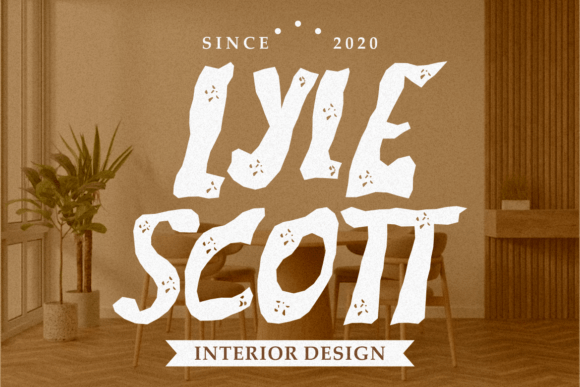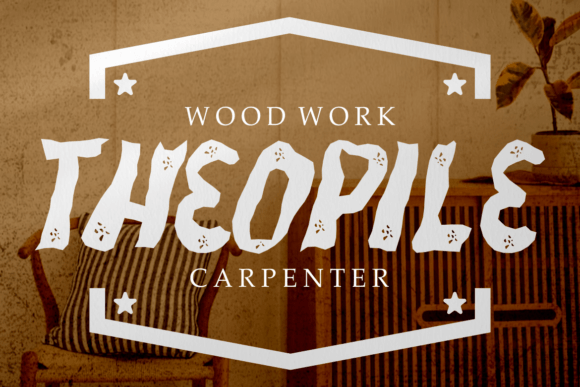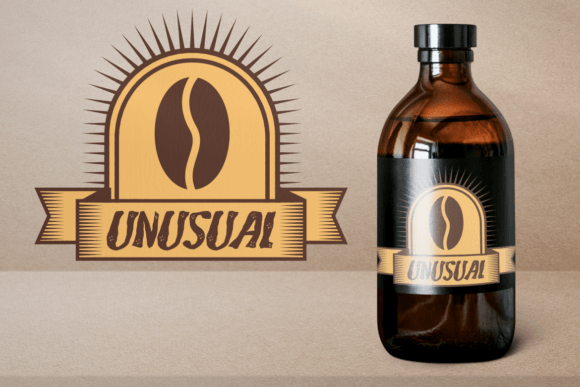
Introduction to Chumba Wamba Font
You’ve been staring at your blank design canvas for what feels like an eternity, searching for the perfect font to bring your creative project to life. You’ve scoured design blogs, browsed font libraries, and even experimented with free downloads, but nothing seems to capture the essence of your vision. That’s when you stumble upon the Chumba Wamba Font – a game-changing display typeface that’s about to revolutionize your design process.
This charming font is more than just a pretty face; it’s a design resource that offers a unique blend of classic elegance and playful roughness. With its textured details and intentionally messy outlines, Chumba Wamba Font is the perfect addition to any design project that needs a touch of personality.
Whether you’re a seasoned designer or a creative beginner, the Chumba Wamba Font is an invaluable asset that will take your designs to the next level. With its high-quality features and transparent background, you can easily integrate it into your printing designs, stickers, greeting cards, and business branding materials, making it an essential tool for any design project.
Key Features of Chumba Wamba Font
- High-quality, unique design ideal for creative projects and graphic design.
- Perfect for designers looking for a distinctive and eye-catching font to elevate their creative project.
Honest Review: Chumba Wamba Font
I recently had the opportunity to experiment with the Chumba Wamba Font for a creative project, and I must say it was a unique experience. This font offers a lot of possibilities for designers looking for a free download that can add a quirky touch to their designs.
- ✨ The Chumba Wamba Font is perfect for designers who want to add a fun, playful vibe to their creative project.
- ✨ The font comes with a transparent background, making it easy to work with and customize to fit your design needs.
- ✨ The high quality of the font ensures that it looks crisp and clear, even at larger font sizes.
However, I did encounter a few limitations while working with the Chumba Wamba Font. These include:
- ⚠️ The font may not be suitable for all types of projects, particularly those that require a more professional or formal tone.
- ⚠️ The font’s quirky nature may not appeal to designers who prefer more traditional or classic font styles.
Overall, the Chumba Wamba Font is a great resource for designers who want to add some creativity and whimsy to their designs. While it may not be suitable for all projects, it’s definitely worth checking out if you’re looking for a unique and high-quality font.
Tips for Getting the Most Out of Chumba Wamba Font
For optimal results, use the Chumba Wamba Font in conjunction with a high-quality image or graphic. You can also experiment with different font sizes and styles to create a unique look.
The Chumba Wamba Font is ideal for creative projects, such as posters, flyers, and business cards. Its high-quality features and transparent background make it a popular choice for designers and artists.